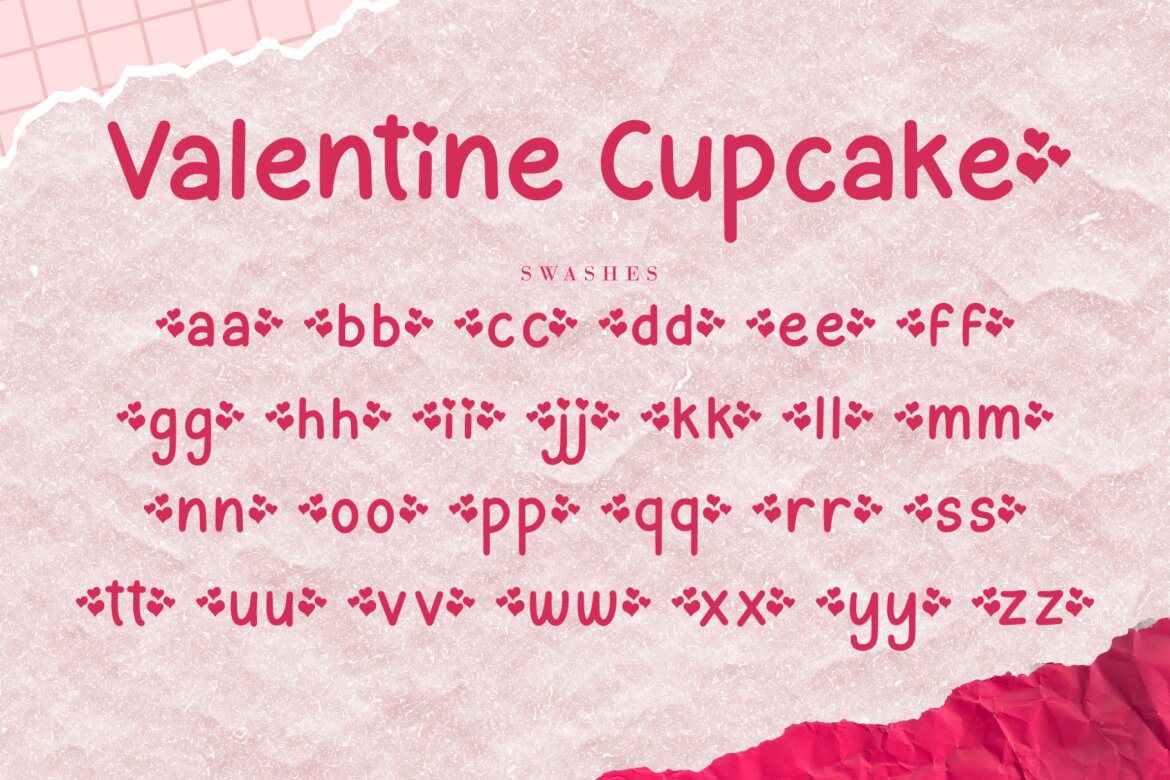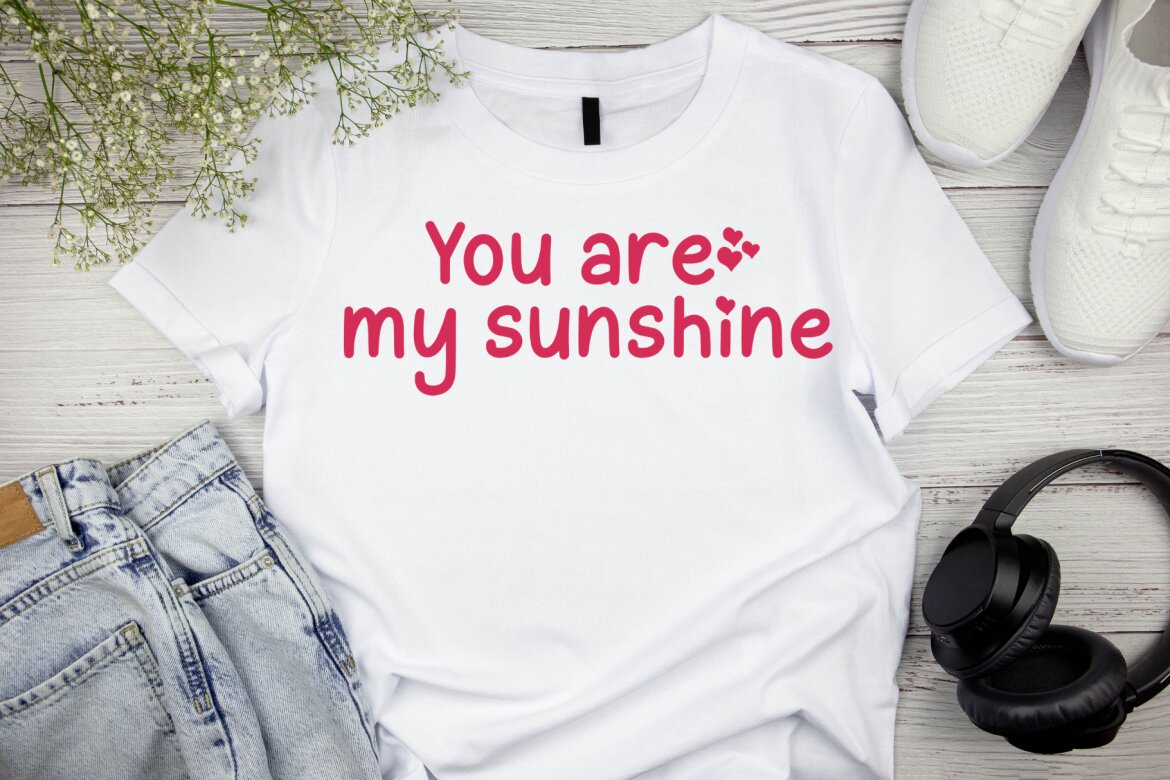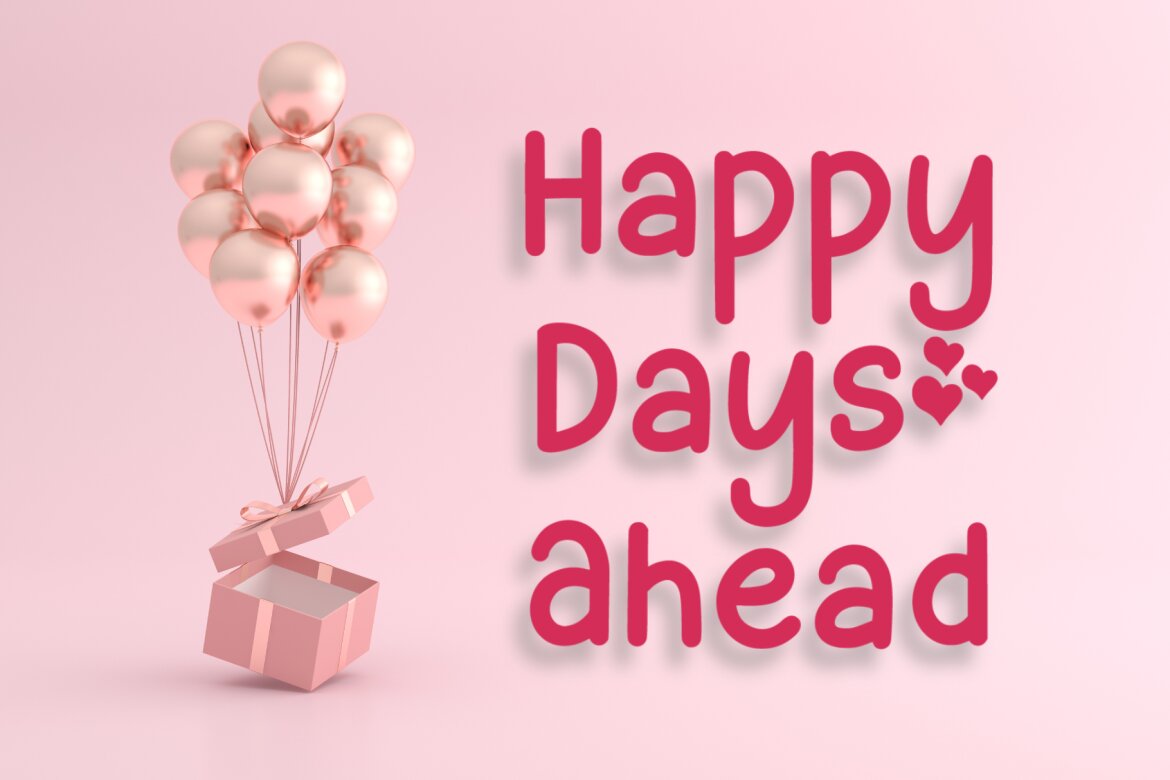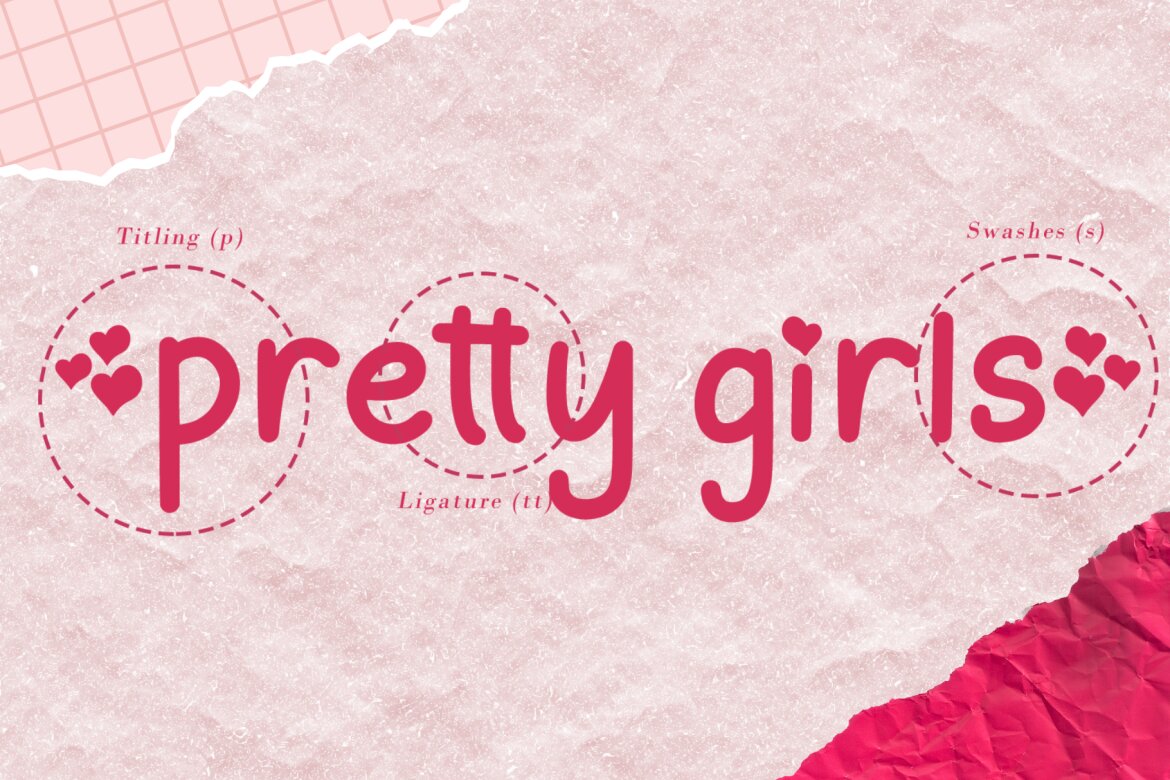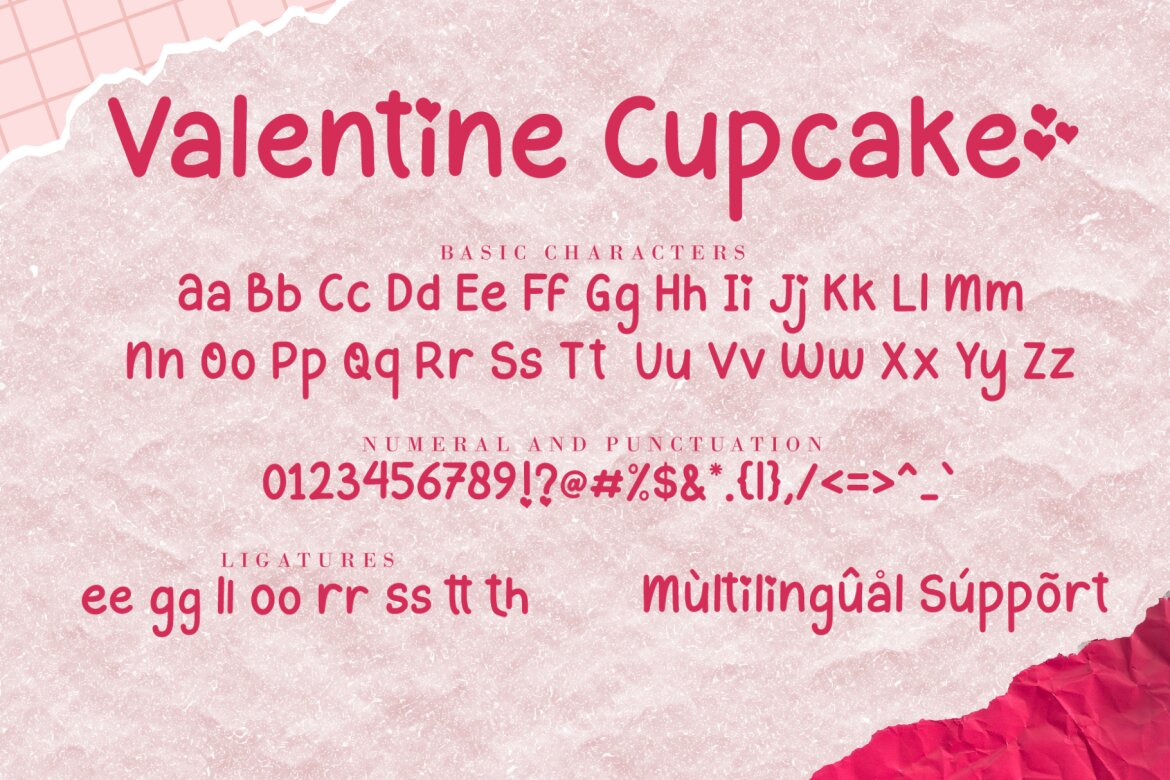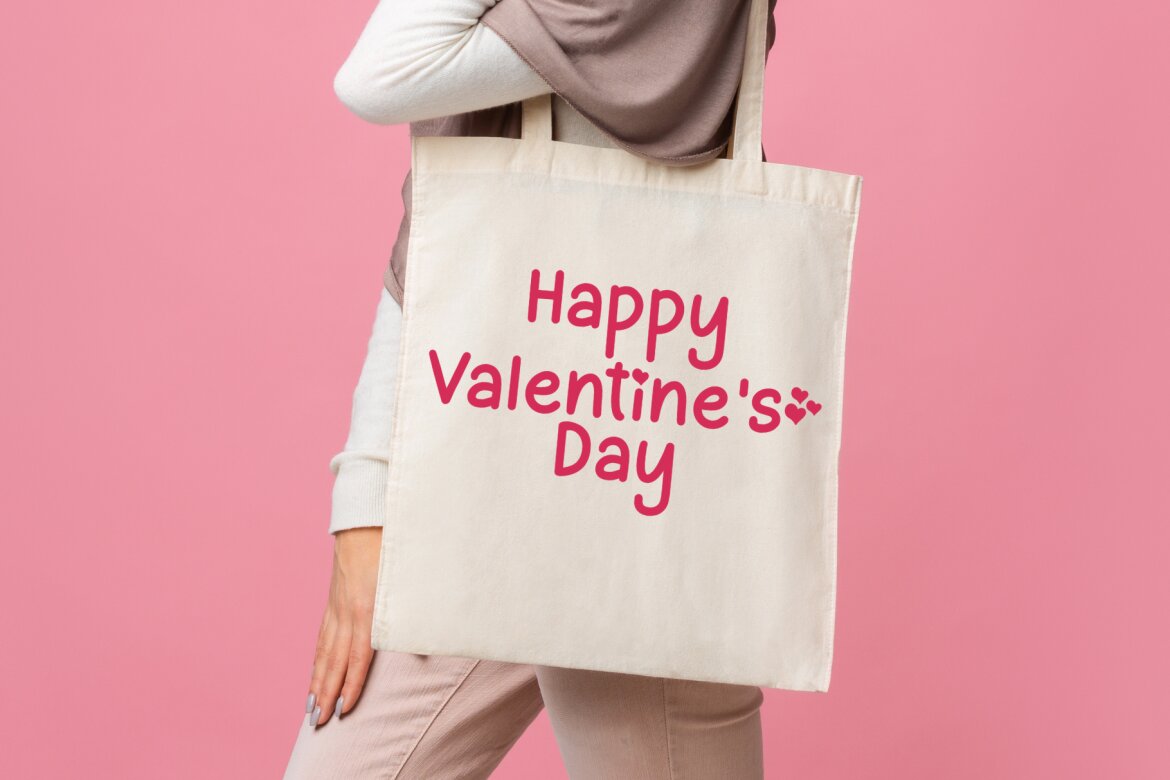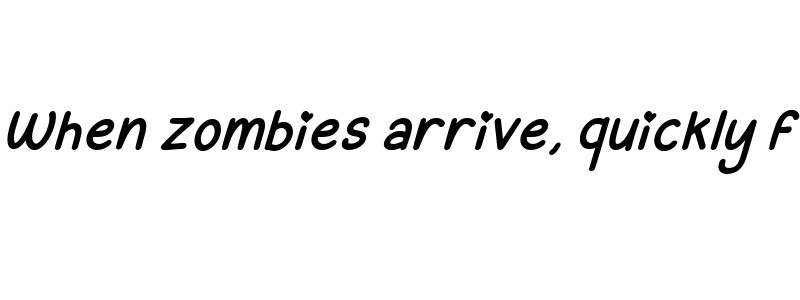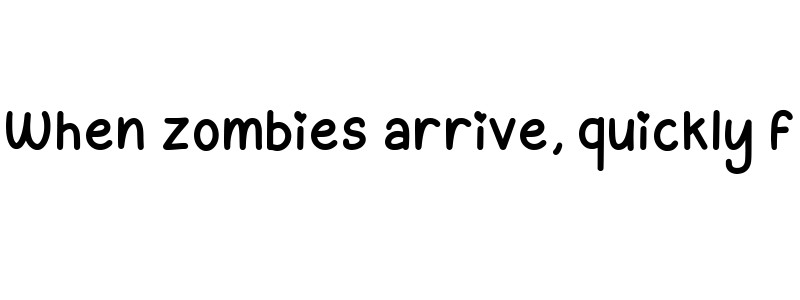
Valentine Cupcake FREE Font
Valentine Cupcake is a sweet and cute handwritten font. This gentle font will look gorgeous on a variety of design ideas. Use it for making birthday cards, social media posts, packaging and logo of your product, t-shirt design, kids stuff, promotion stuff, and much more!
• ligatures, swashes & titiling
• support multilingual; ä ö ü ä ö ü ß ¿ ¡
• valentine cupcake italic
• valentine cupcake regular